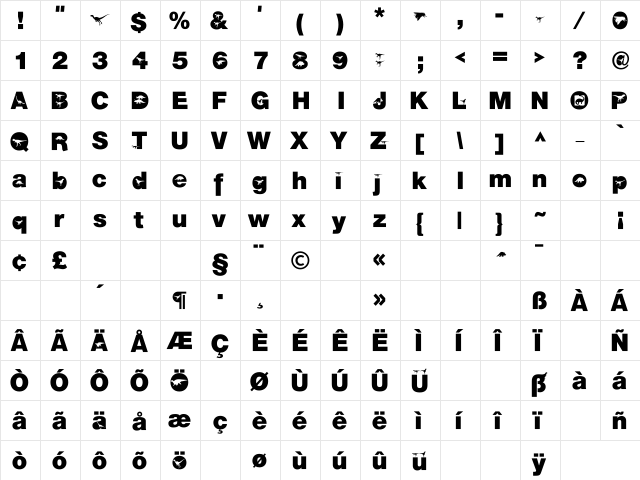
AIDino Heavy
Design Context for AIDino Typeface
AIDino is a composed and adaptable typeface that performs quietly and consistently across a wide range of design contexts.